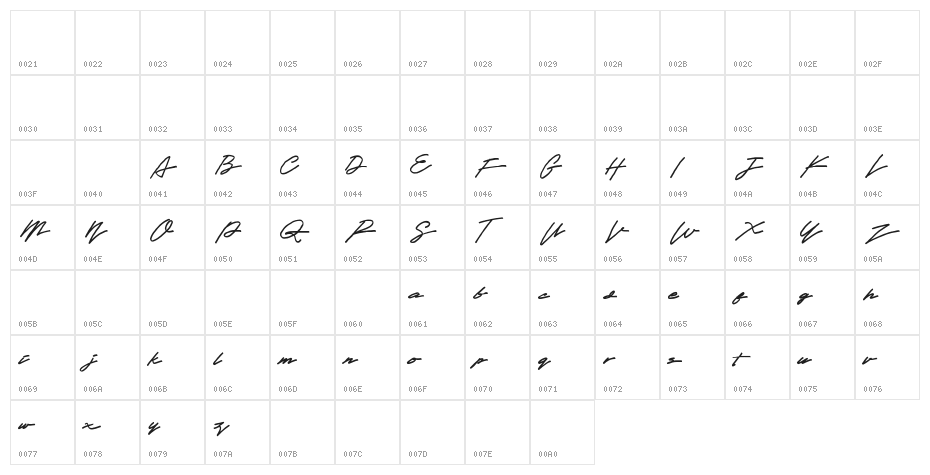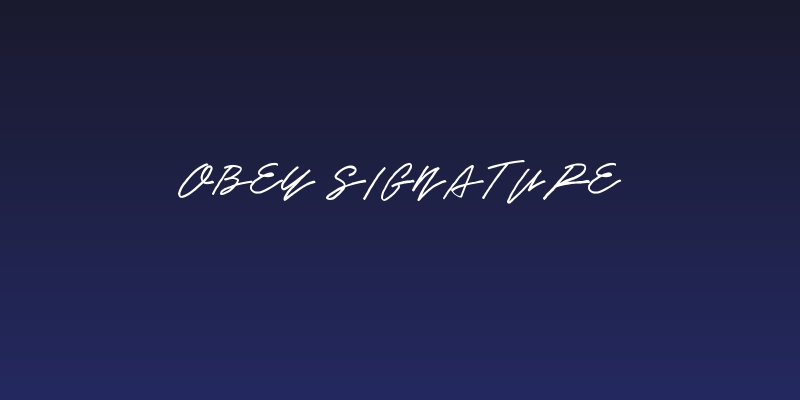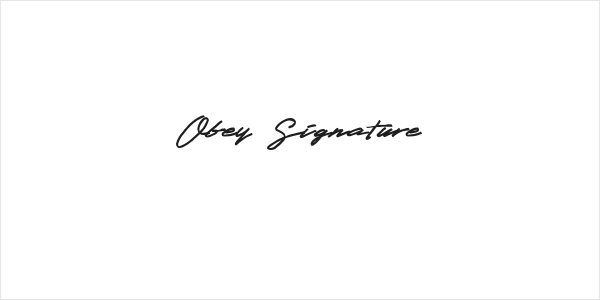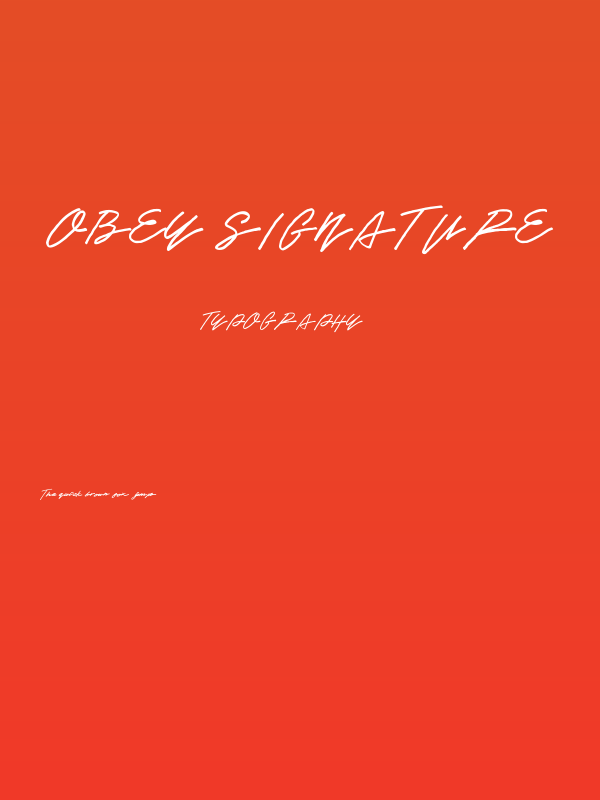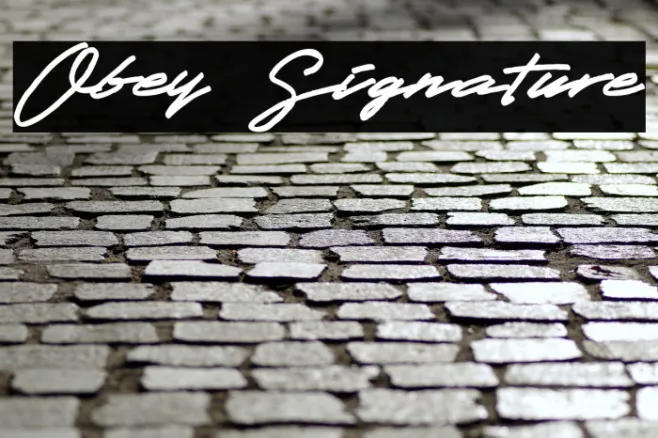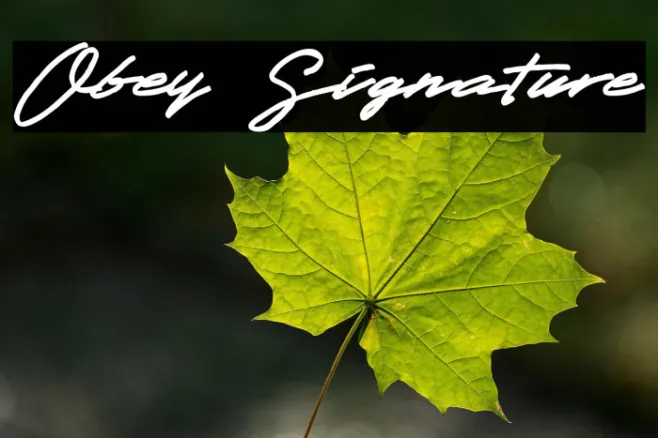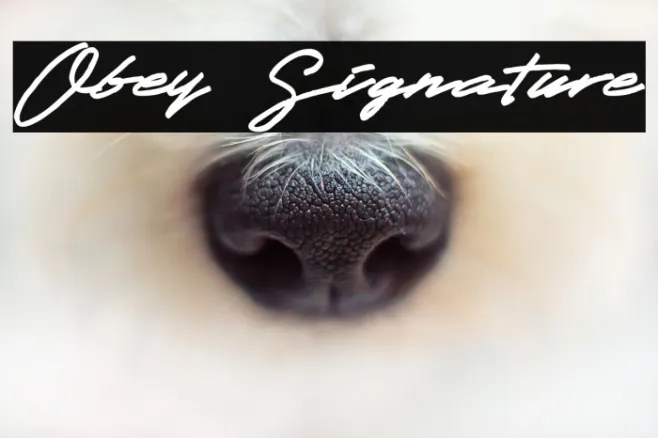
Obey Signature Font
Obey Signature Description
This font exudes a dynamic and fluid style, reminiscent of elegant handwriting. The characters are connected in a continuous flow, creating a sense of motion and grace. The uppercase letters are bold and slightly slanted, while the lowercase letters maintain a consistent rhythm with smooth curves and loops. The overall appearance is sophisticated and personal, making it ideal for projects that require a touch of elegance and individuality. The special characters are seamlessly integrated, maintaining the cursive style throughout.
| Overall Style | Elegant, Handwritten |
| Proposed Projects | Ideal for wedding invitations, personal branding, signature logos, and elegant stationery. |